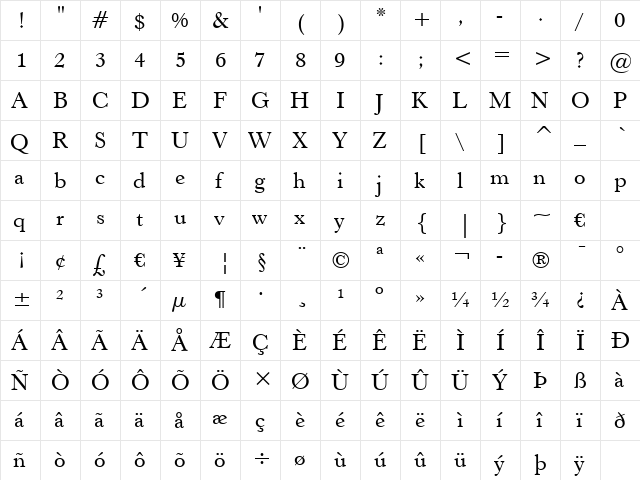
Revivl555 SeBd BT Semi Bold
Design Context for Revivl555 SeBd BT Typeface
Revivl555 SeBd BT is a composed and adaptable typeface that performs quietly and consistently across a wide range of design contexts. The heavy weight commands attention and anchors typographic hierarchies.